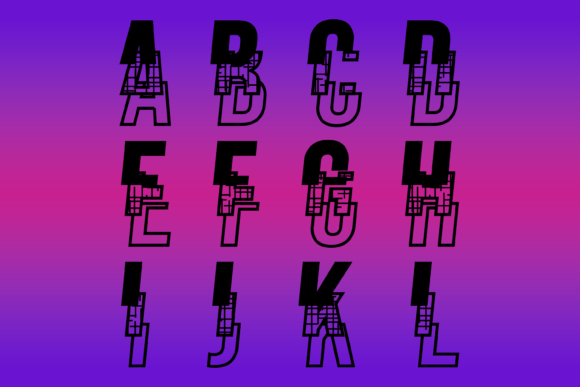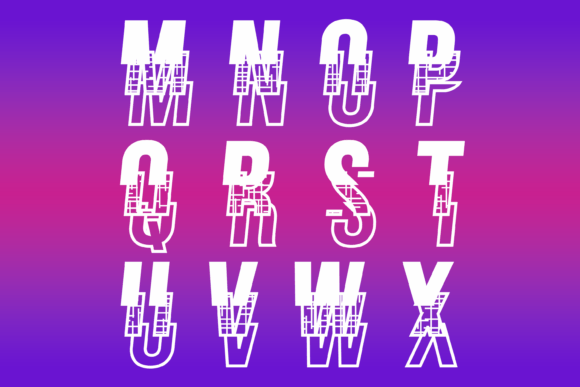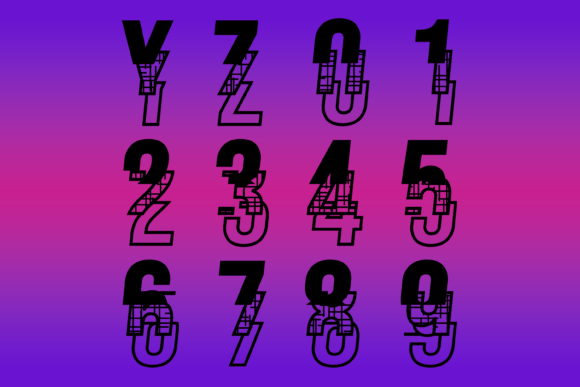
Get Your Funk On: Unleashing the Power of Disco Funk Font
You know that moment when you’re browsing through design inspiration and stumble upon a font that just screams “I’m fun, I’m funky, and I’m here to make a statement!” That’s exactly what happens when you lay eyes on the Disco Funk Font. This incredibly cool and modern display font is the perfect addition to any design project that needs a dash of creativity and flair.
Whether you’re working on custom designs, DIY crafts, or just anything that requires a funky touch, the Disco Funk Font is an amazing choice. Its versatility and unique style make it a valuable asset for designers who want to add a bit of personality to their work. With the Disco Funk Font, you’ll be able to create eye-catching designs that are sure to turn heads.
- Unique Characteristics: Features a distinctive disco-inspired design with funky, dynamic letterforms and a bold, energetic feel.
- Font Style: Available in Regular and Bold styles, offering flexibility for designers to create a range of visual effects.
Disco Funk Font Review
First off, I have to say that the Disco Funk Font is a fun and energetic addition to any design project. The ✨ bold and playful style is sure to grab attention and add a touch of retro flair to any layout. The font is also surprisingly versatile, and I found myself using it for a range of applications, from headings to body text.
One of the things that really stands out about the Disco Funk Font is its ✨ wide range of character variations. From the standard uppercase and lowercase letters to the many special characters and punctuation marks, this font has it all. I also appreciate the ✨ detailed documentation and tutorials that come with the font, making it easy to get started and experiment with different designs.
While the Disco Funk Font is a great addition to any design project, there are a few limitations to be aware of:
- ⚠️ Limited font sizes: While the font is perfect for headings and titles, it can be a bit difficult to read in smaller font sizes.
- ⚠️ Limited line height: The font can be a bit cramped when used with shorter line heights, making it difficult to read and understand.
- ⚠️ Limited support for non-English characters: Unfortunately, the font does not include support for many non-English characters, which can be a limitation for designers working on international projects.
Overall, I think the Disco Funk Font is a great addition to any design project, but it’s not without its limitations. With a little creativity and experimentation, however, I think designers can get a lot of mileage out of this fun and energetic font.
Getting the Most Out of the Disco Funk Font
Use bold font weights to create a strong and funky feel.
Experiment with different font sizes and combinations to add visual interest.
Combine the Disco Funk Font with other funky fonts for a unique look.
Use the Disco Funk Font for:
Party invitations and promotional materials.
Music festival and event branding.
Fun and playful social media graphics.
2. Boogie Nights Font
Boogie Nights Font is a sophisticated, glamorous font that evokes the glamour of the disco era. It features sleek, modern letters and a luxurious feel that makes it perfect for designing luxury brands, fashion labels, and high-end products. When to use: For projects that require a sense of luxury and sophistication. Compared to Disco Funk Font: Boogie Nights Font has a more refined and elegant feel, making it a great alternative for designers who want to add a touch of glamour to their designs.